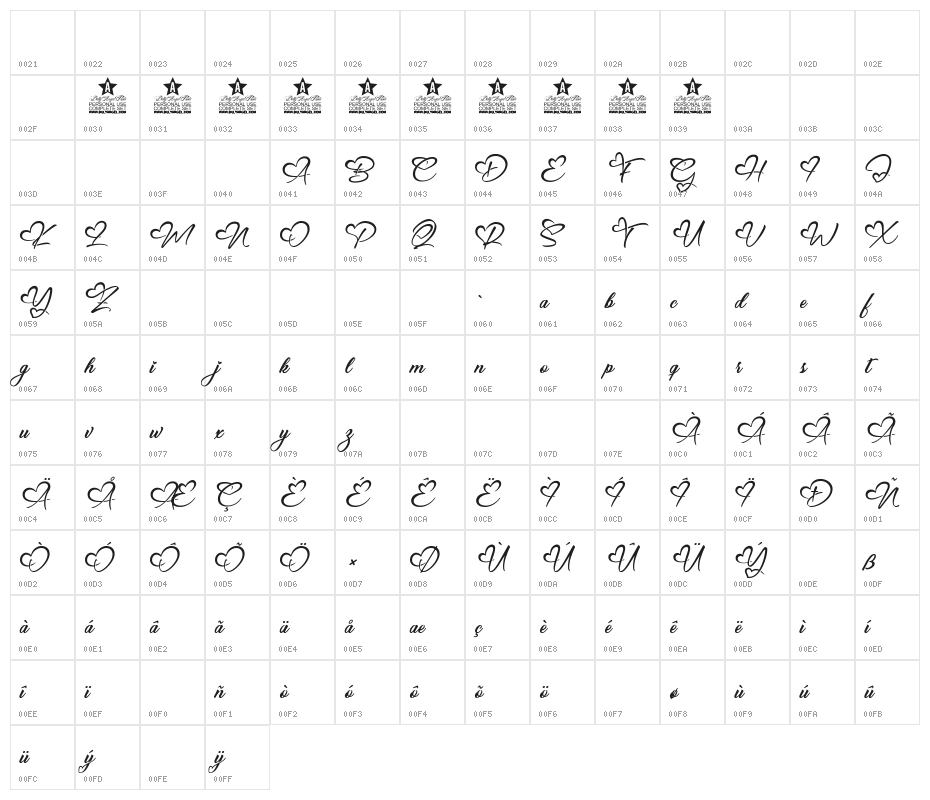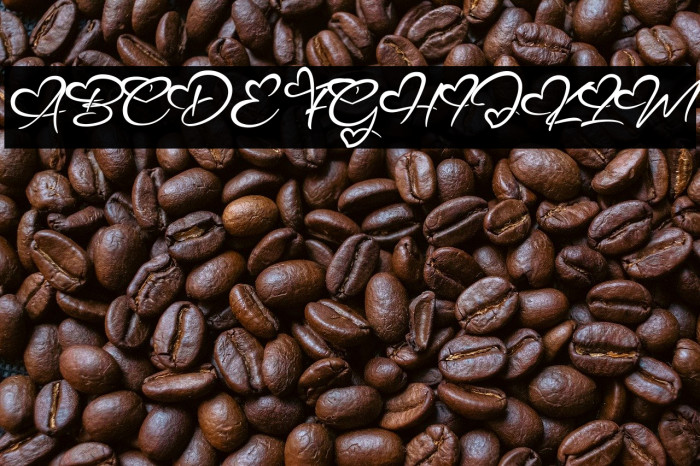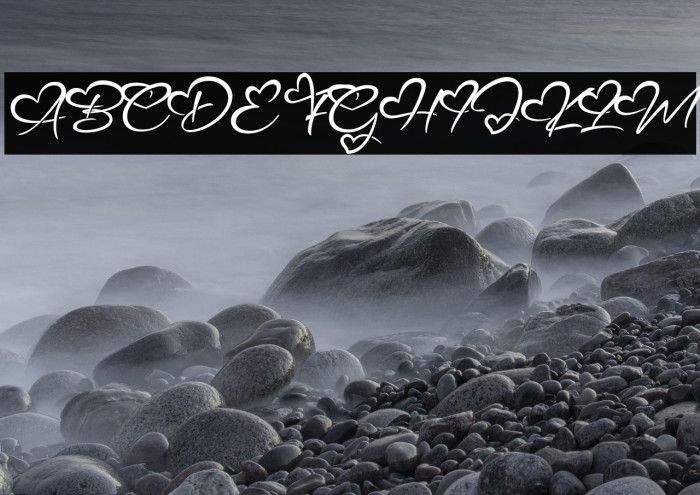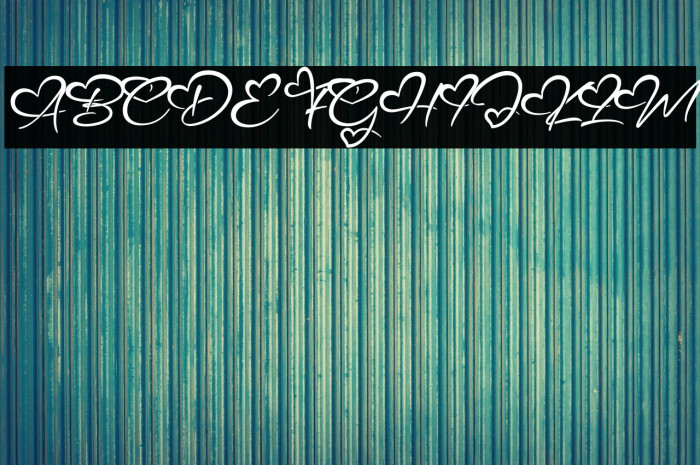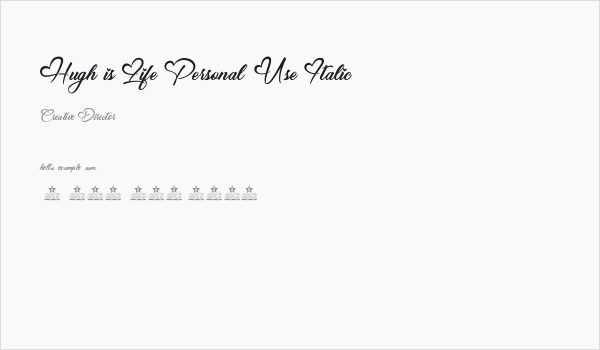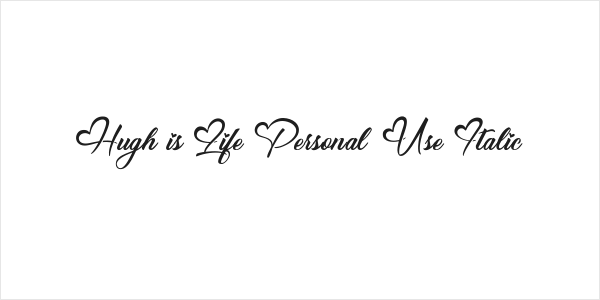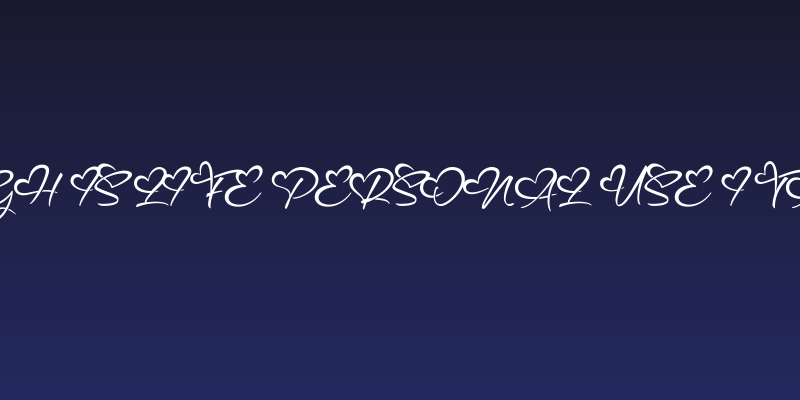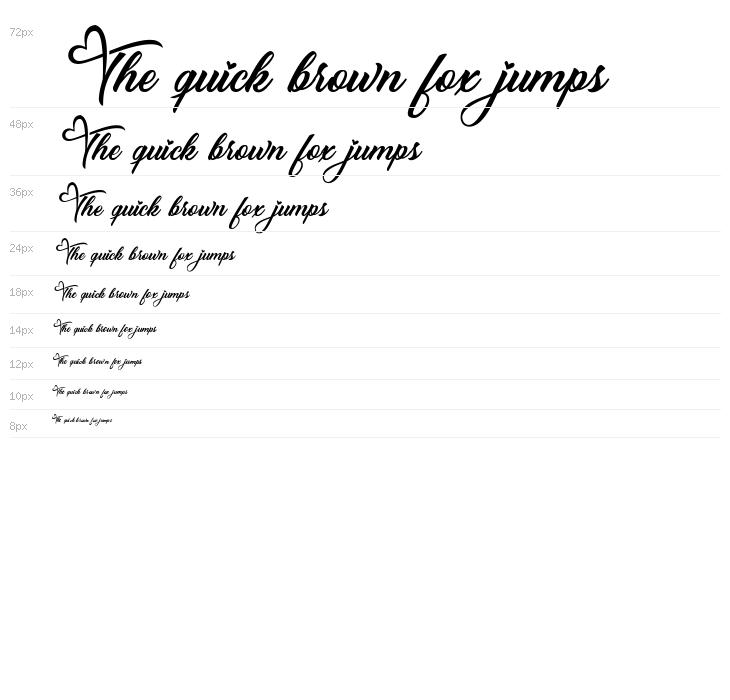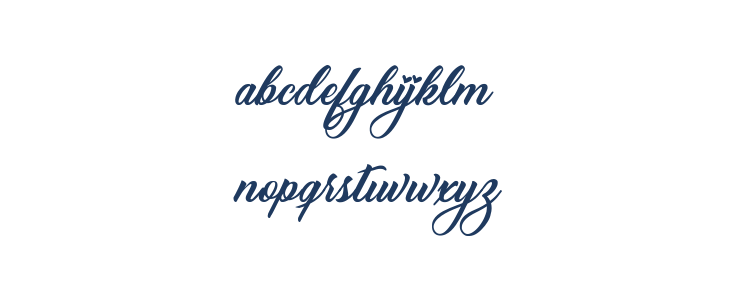
Hugh is Life Personal Use Italic Font
Hugh is Life Personal Use Italic Description
This font features an elegant and flowing script style, characterized by its cursive and connected letterforms. The uppercase letters are adorned with heart-shaped embellishments, adding a playful and romantic touch. The lowercase letters maintain a smooth and consistent flow, enhancing readability while retaining a decorative flair. The overall design is sophisticated and artistic, making it suitable for creative and expressive projects. The font's italic nature adds a dynamic and graceful movement to the text, perfect for capturing attention and conveying a sense of elegance.
| Proposed Projects | Ideal for wedding invitations, greeting cards, personal branding, and romantic-themed designs. |